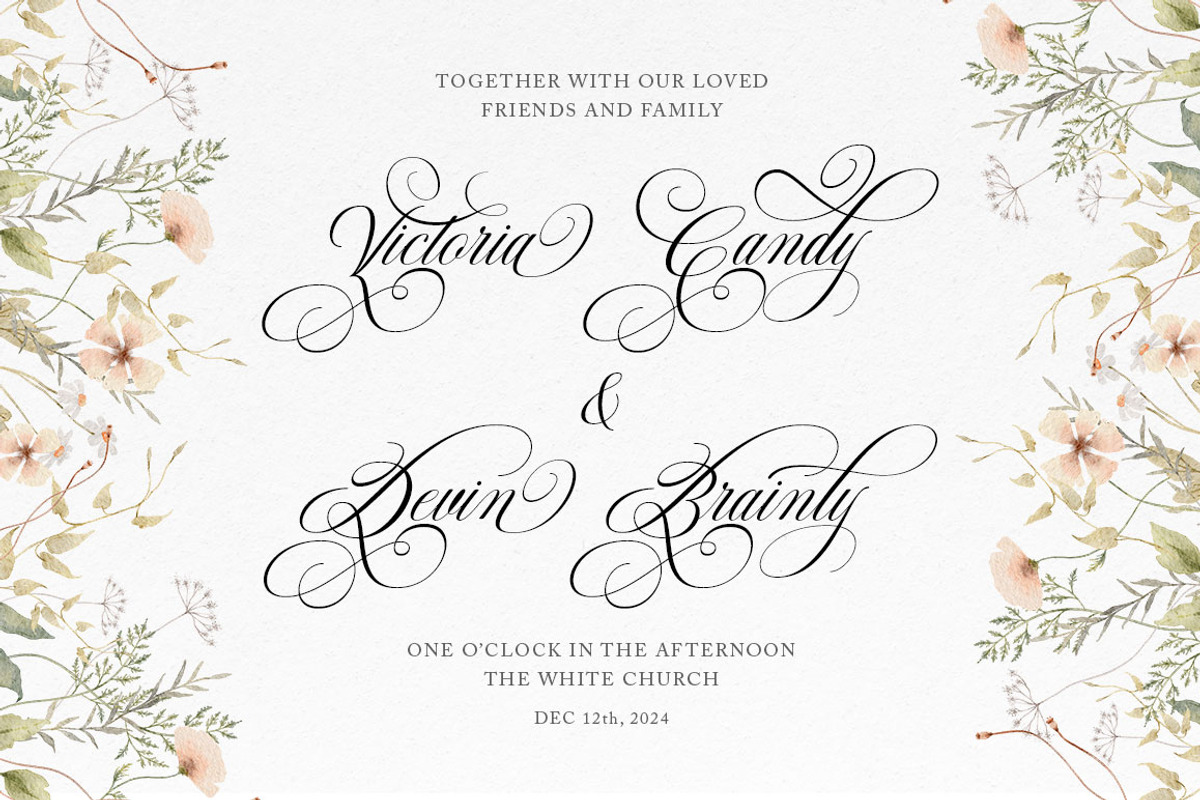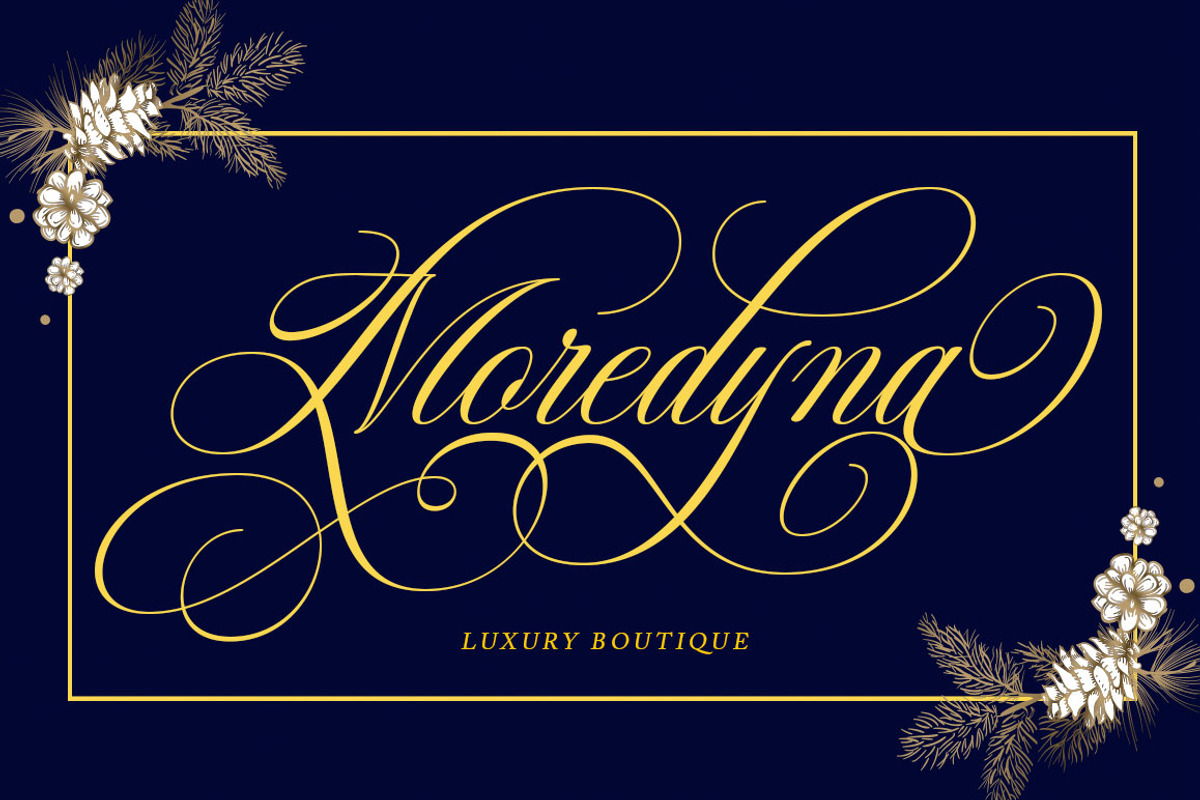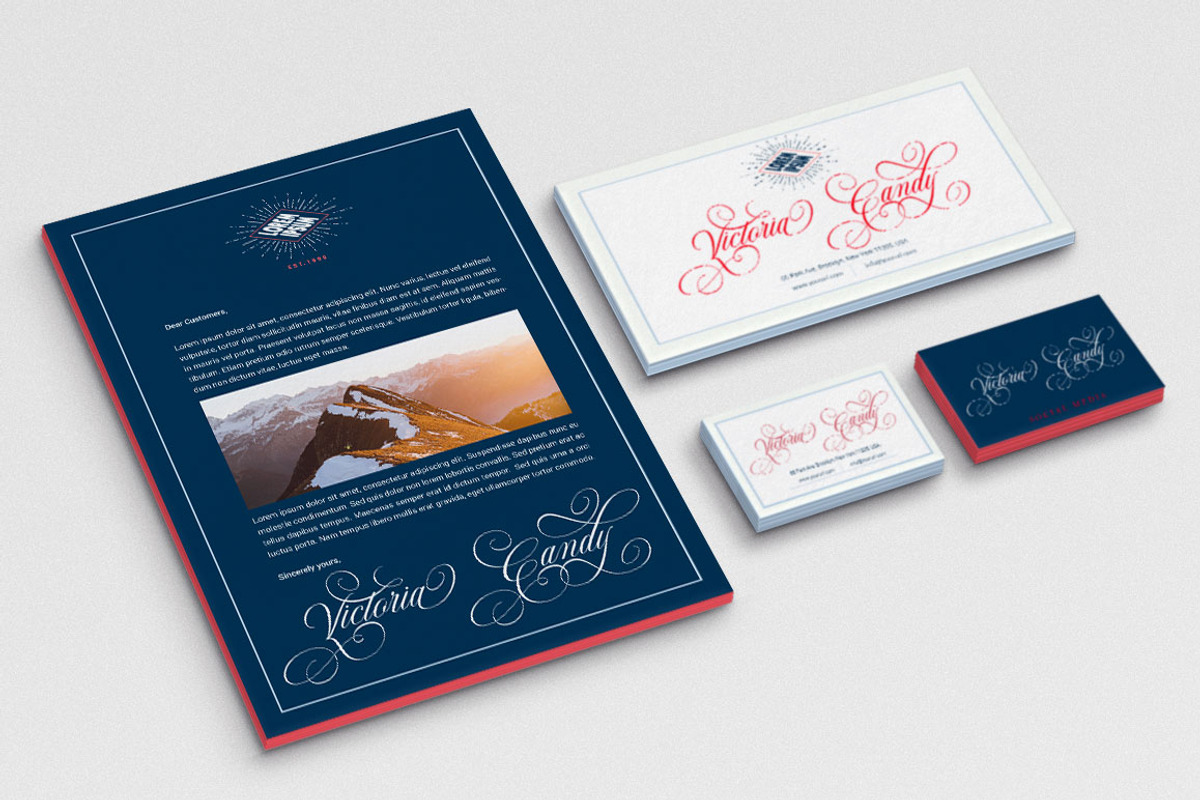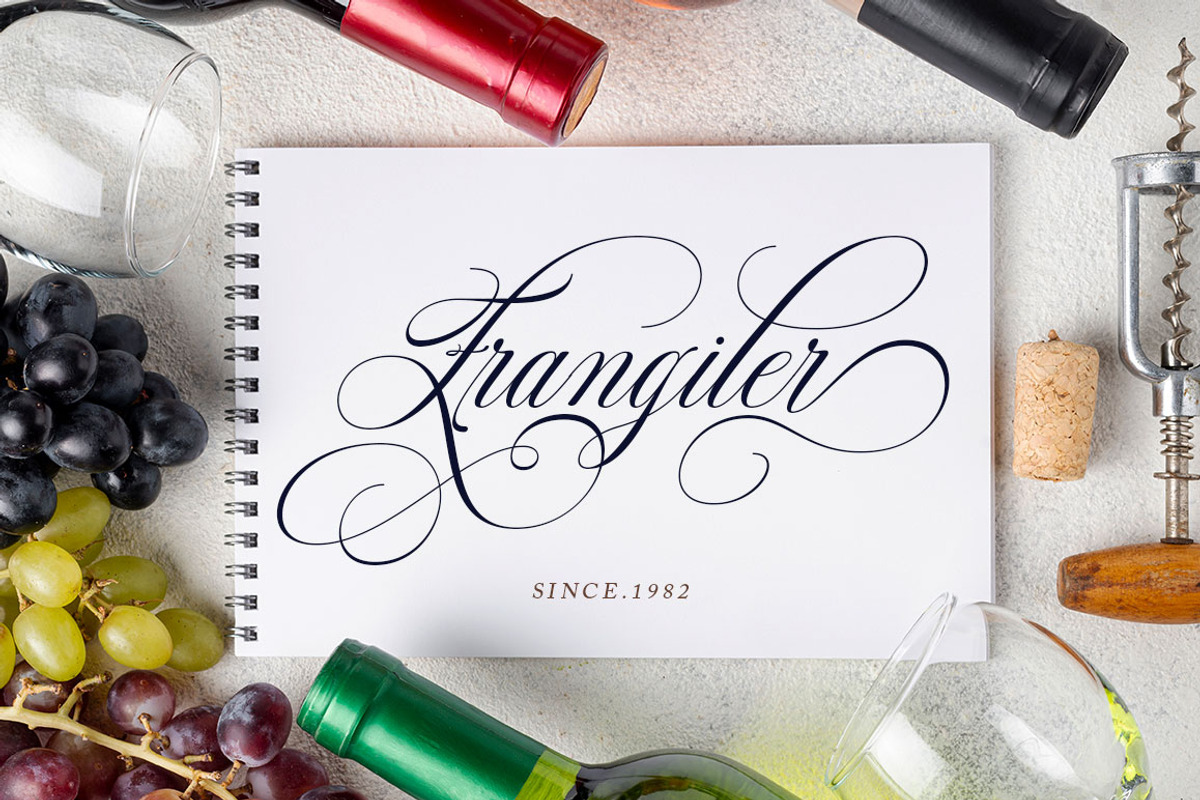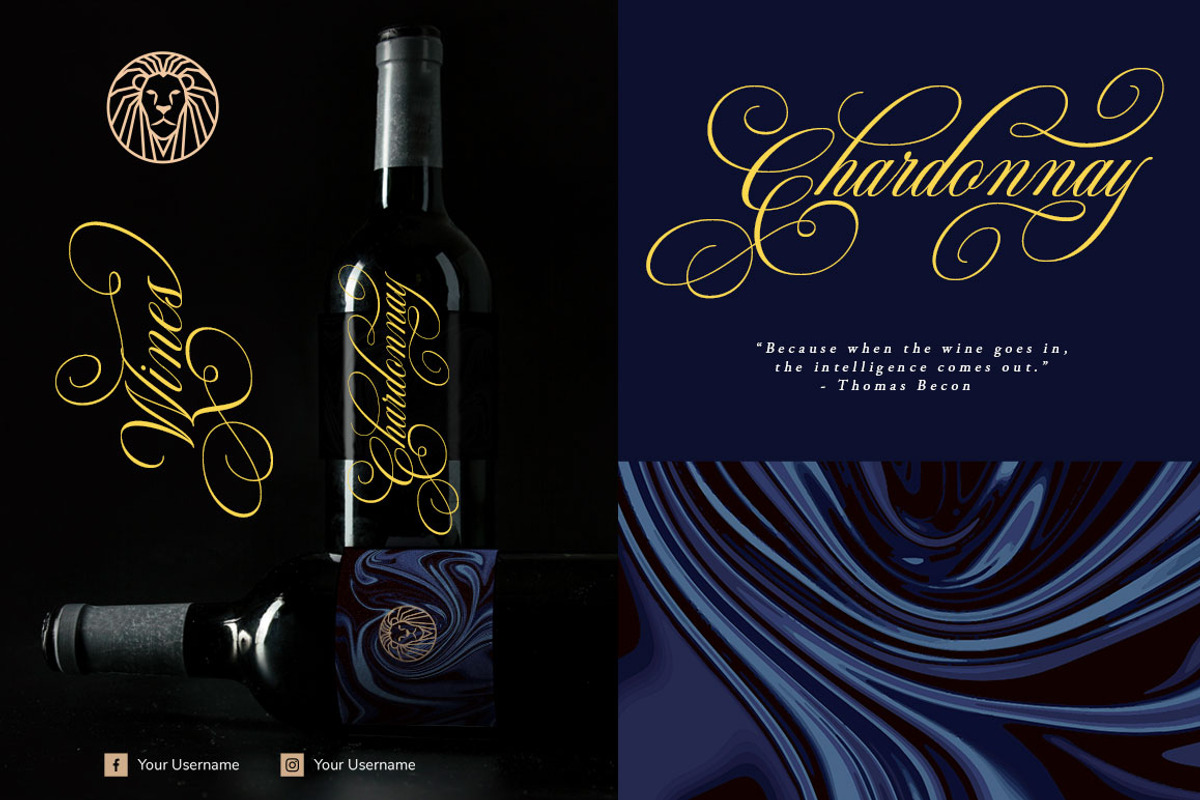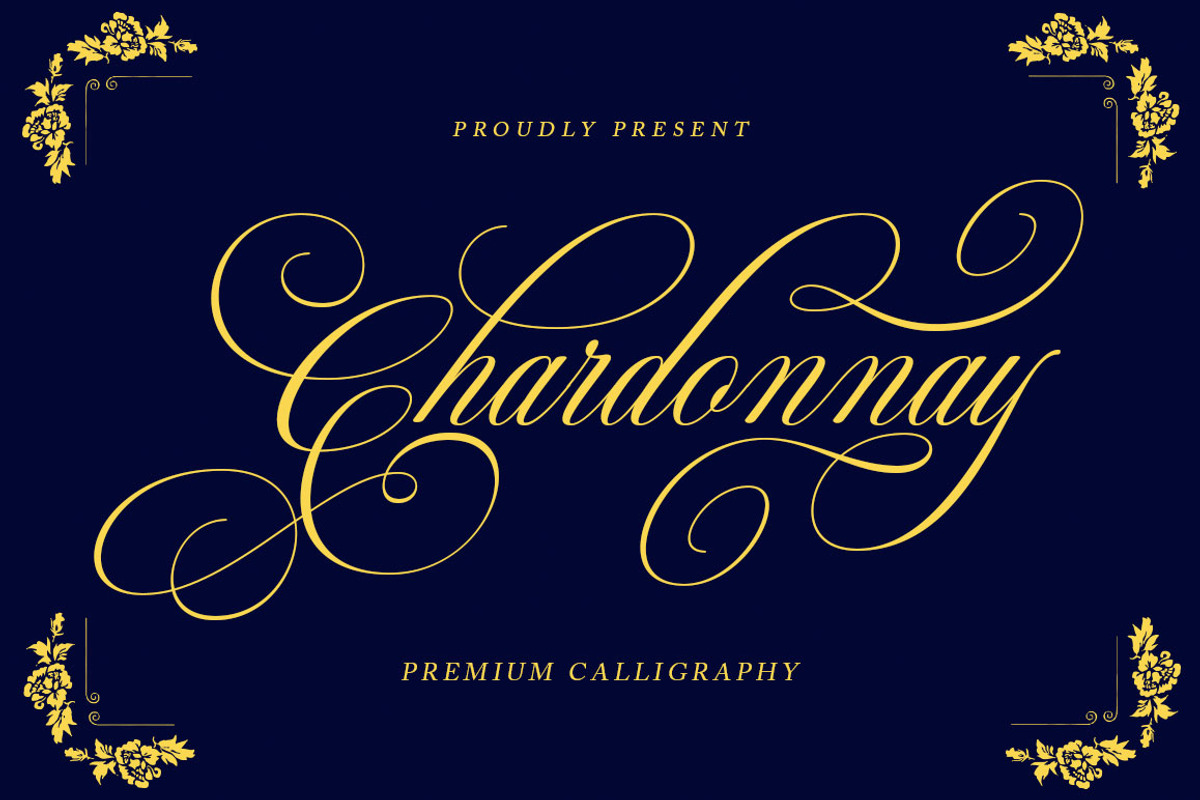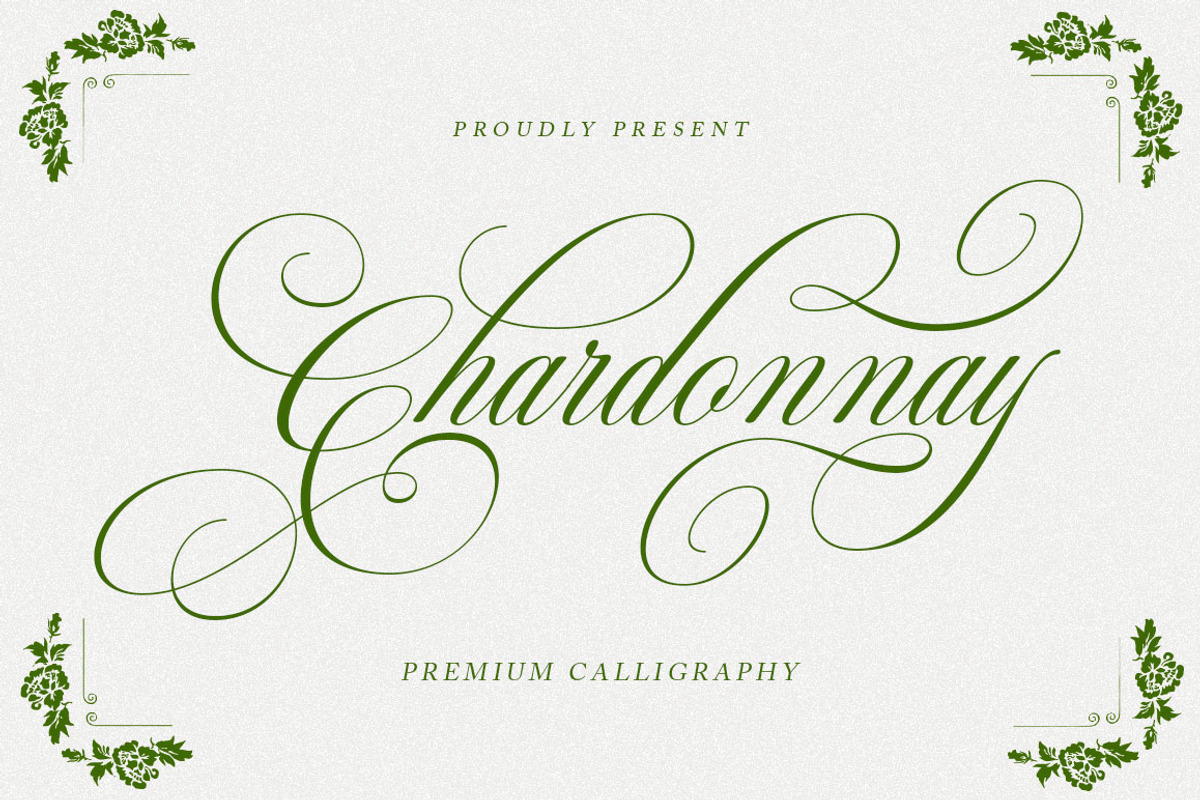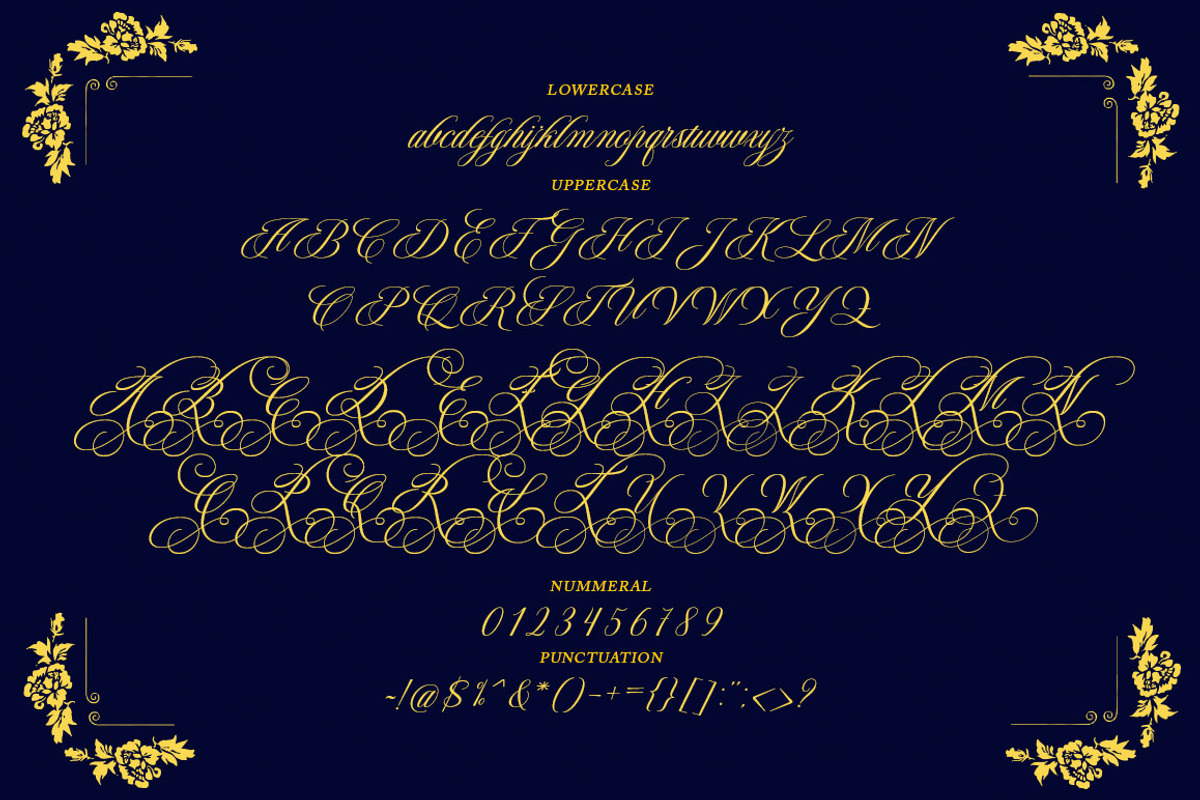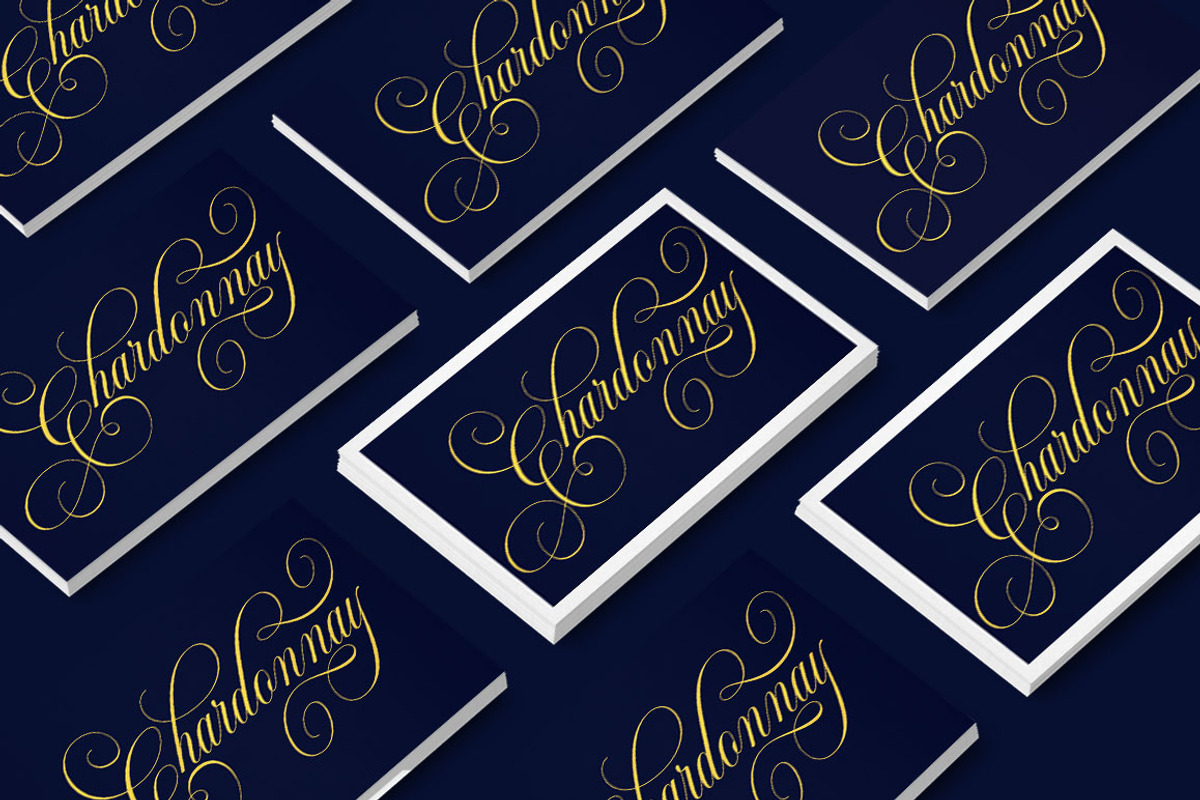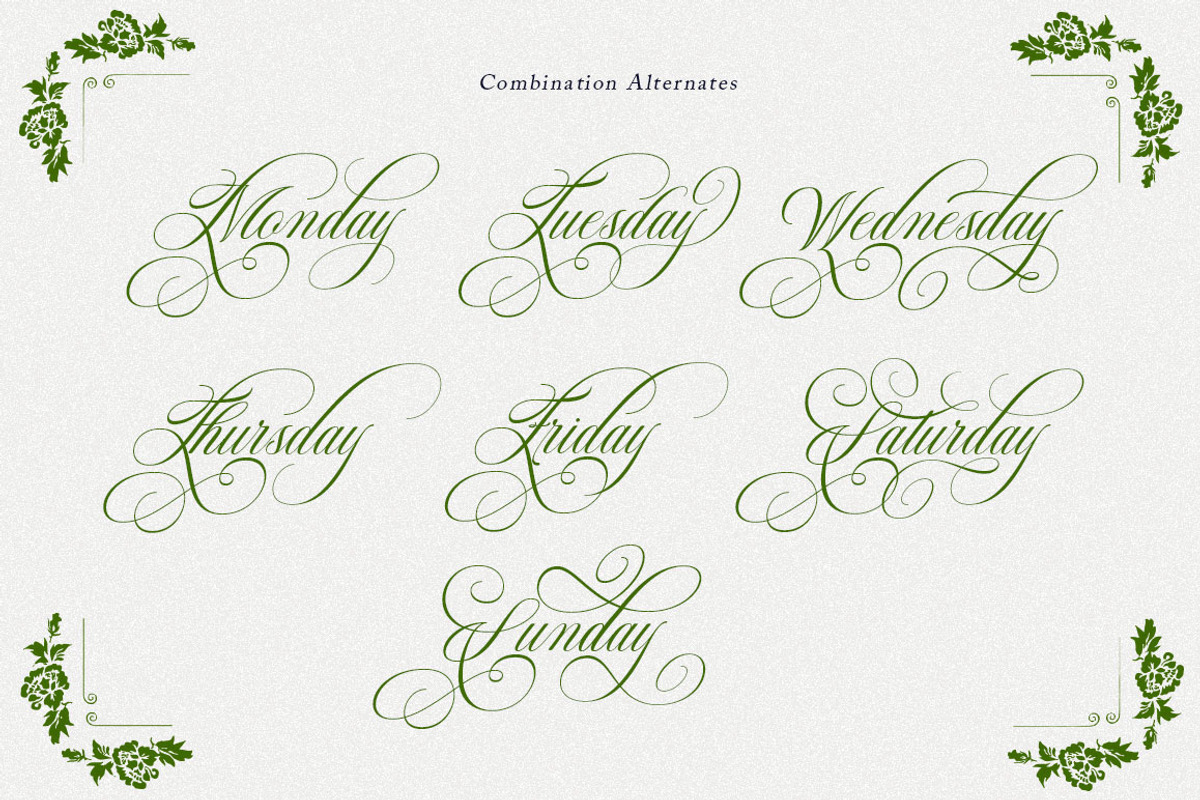
Chardonnay Script
Chardonnay Script is a Premium calligraphy font, Chardonnay Script is handcrafted with copper plate stylus and features open type with pug encode, Chardonnay Script is a Premium Calligraphy includes alternatives, style sets, ligatures, and swashes, Each glyph lowercase has a stylized styling, Swiss is perfect for branding, invitations wedding and cards or quotes.